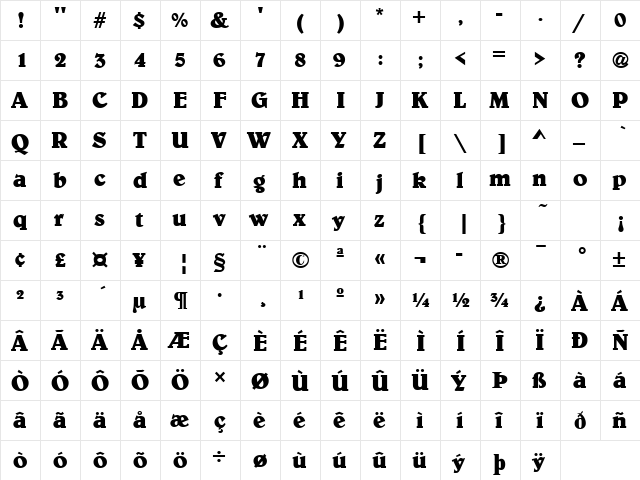
BelweH Bold
Design Context for BelweH Typeface
BelweH is a composed and adaptable typeface that performs quietly and consistently across a wide range of design contexts. Its bold stroke weight gives it real presence on the page.